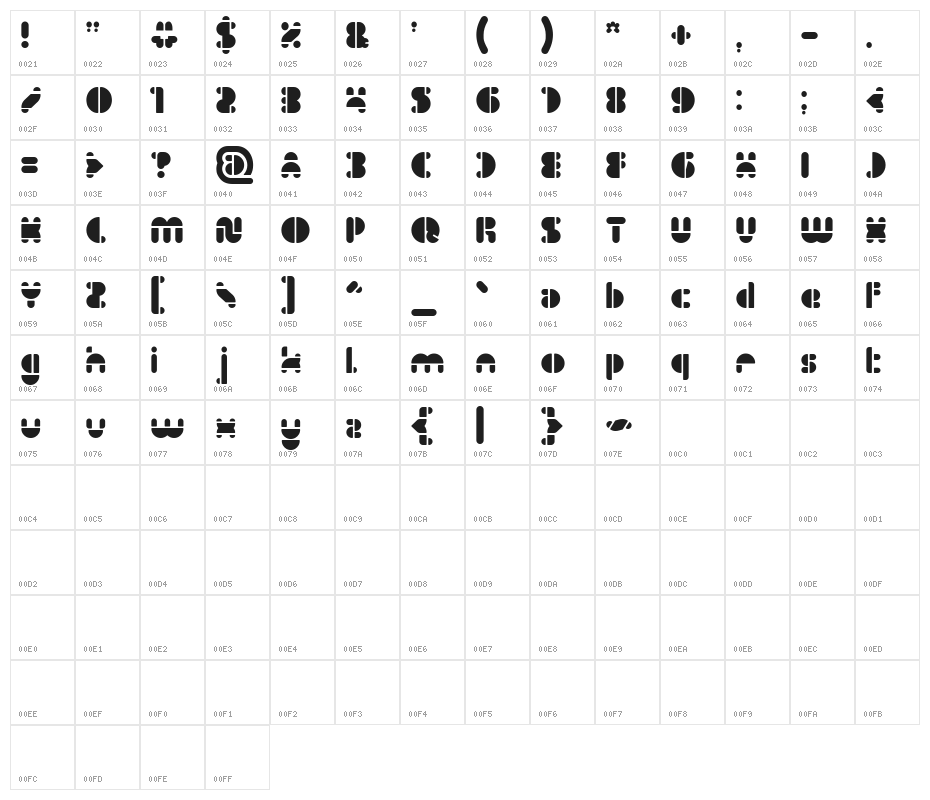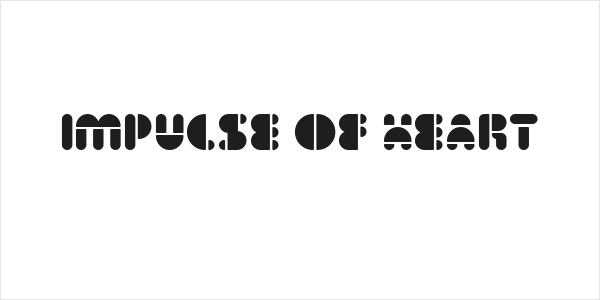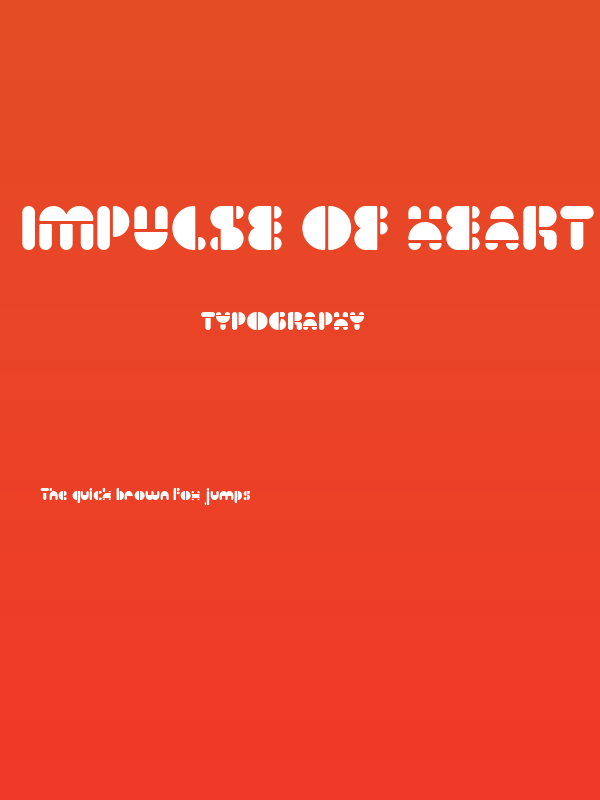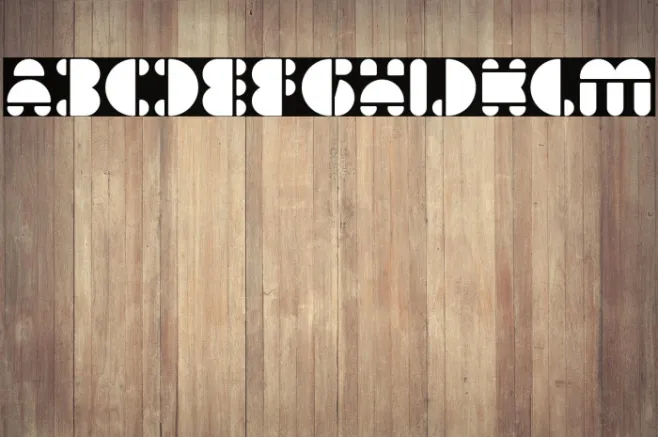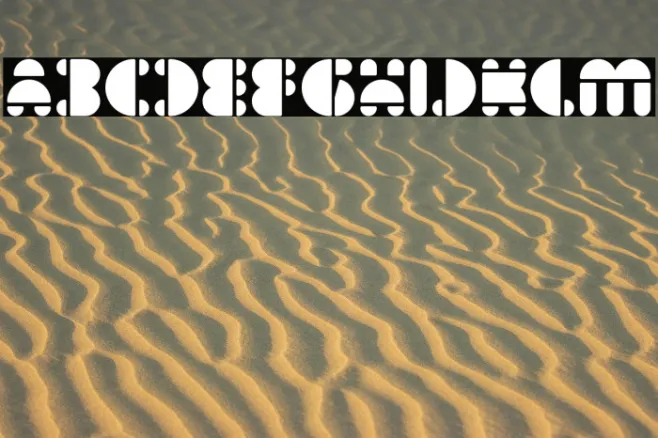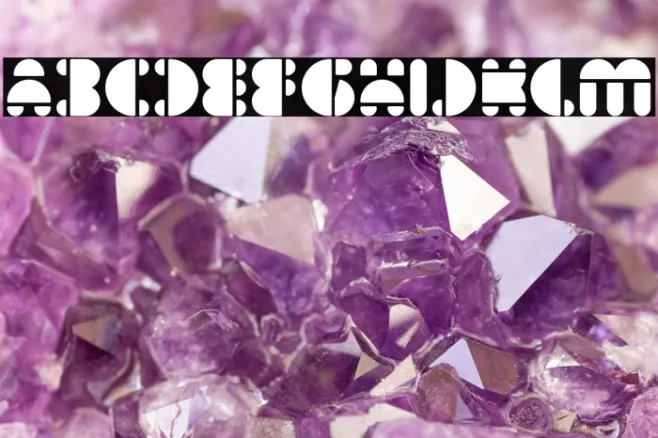
IMPULSE OF HEART Font
IMPULSE OF HEART Description
This font features a bold and geometric design with a distinct stencil-like appearance. Each character is composed of solid, rounded shapes with strategic cutouts, creating a modern and futuristic aesthetic. The uppercase and lowercase letters maintain a consistent style, with the lowercase offering a slightly more compact form. Numbers and special characters follow the same design principles, ensuring uniformity across all glyphs. The overall look is striking and eye-catching, making it ideal for projects that require a strong visual impact.